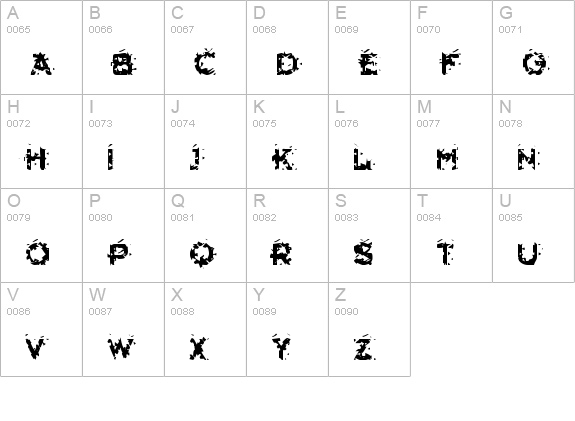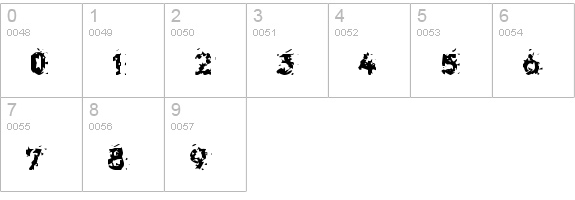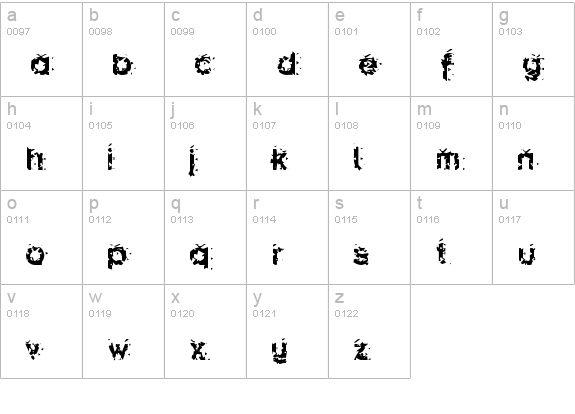
Hammeroid Font Details
Introducing Hammeroid, a bold and powerful font that exudes strength and impact. With its robust and sturdy letterforms, Hammeroid is the perfect choice for projects that require a touch of boldness and an unforgettable presence. Designed with meticulous attention to detail, Hammeroid is a versatile font that can be used for a variety of purposes. Whether you're working on a logo, a headline, a poster, or any other design project, this font will effortlessly command attention and leave a lasting impression. Hammeroid's unique and distinctive letter shapes are a testament to its craftsmanship. Each character is meticulously crafted to deliver a strong and authoritative message, making this font ideal for projects that require a sense of power and confidence. One of the most incredible aspects of Hammeroid is that it is free. Yes, you read that right! Hammeroid is freely available to download at FontsMarket.com. This means that you can enhance your designs with this incredible font without worrying about any costs. Don't miss out on the opportunity to add Hammeroid to your font collection. With its bold and impactful design, this font is a must-have for any designer looking to make a statement. Download Hammeroid today from FontsMarket.com and take your designs to new heights of excellence.